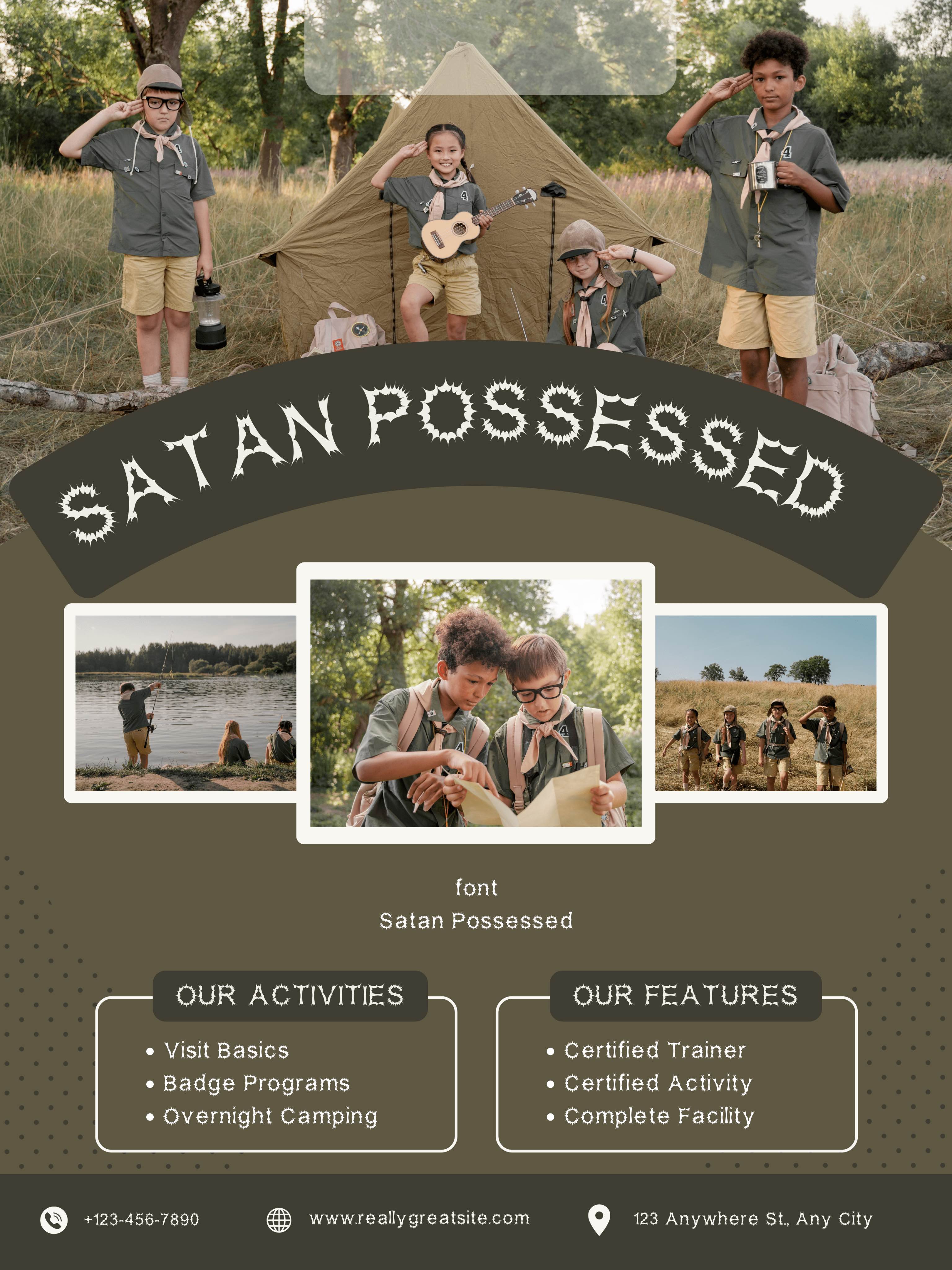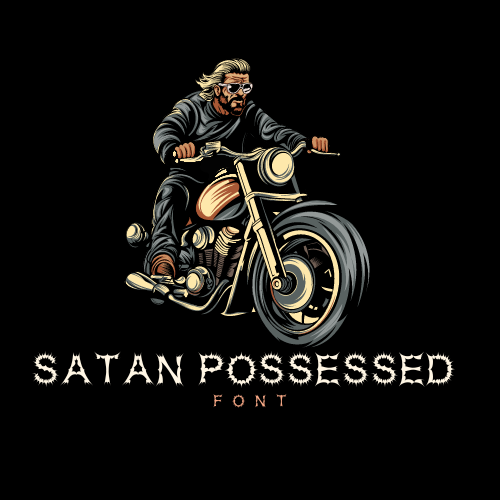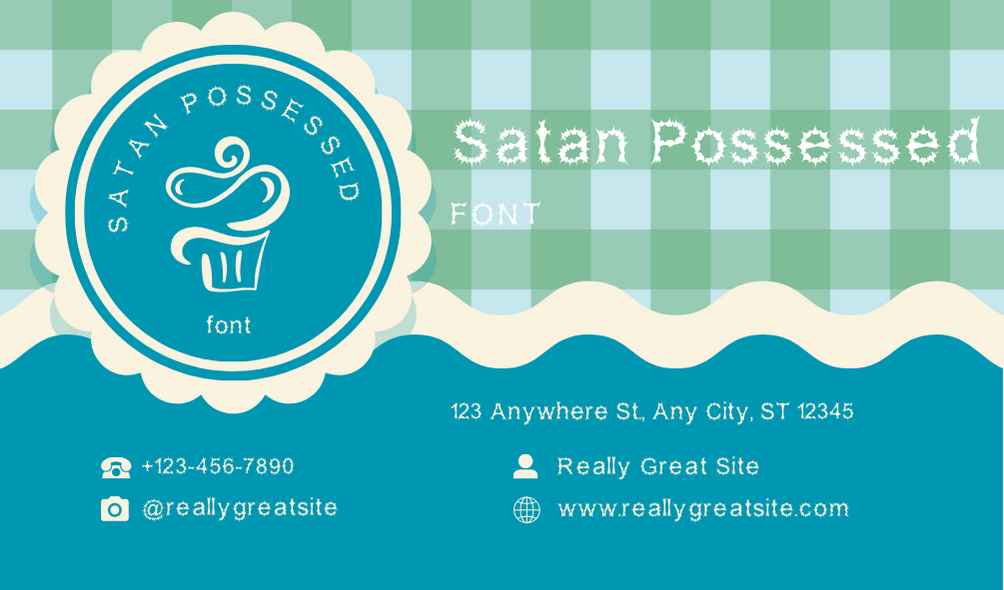
Satan Possessed is a font that is perfect for use in fun and creative designs.The font subfamily is Regular, which means that it has a standard, non-italicized appearance.